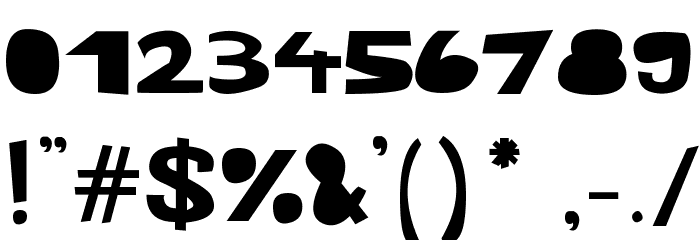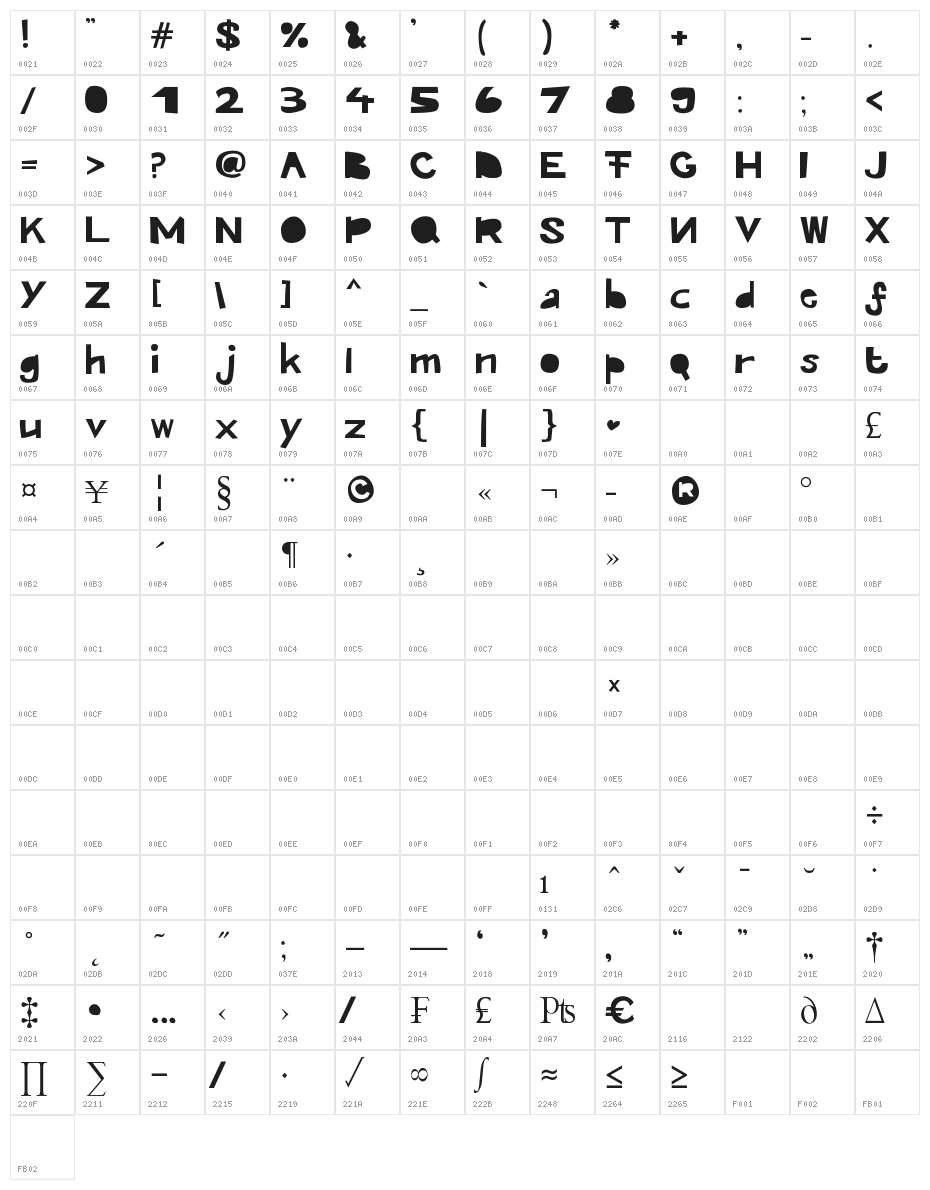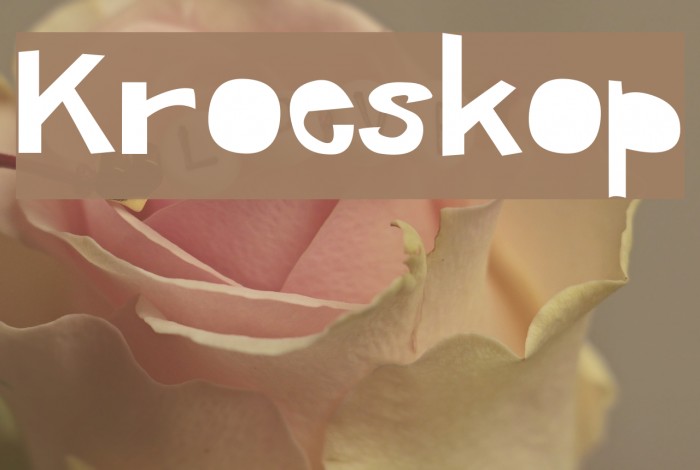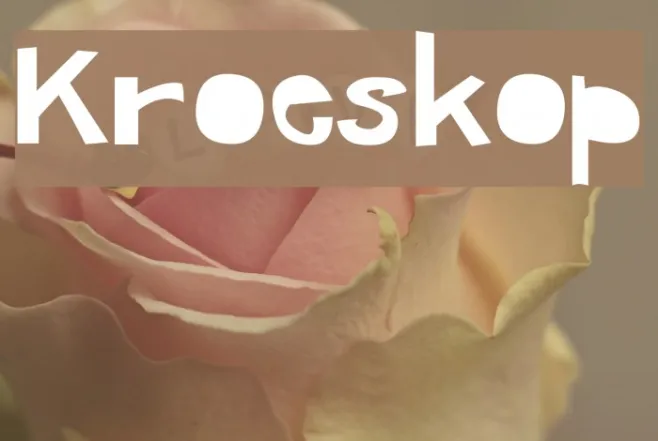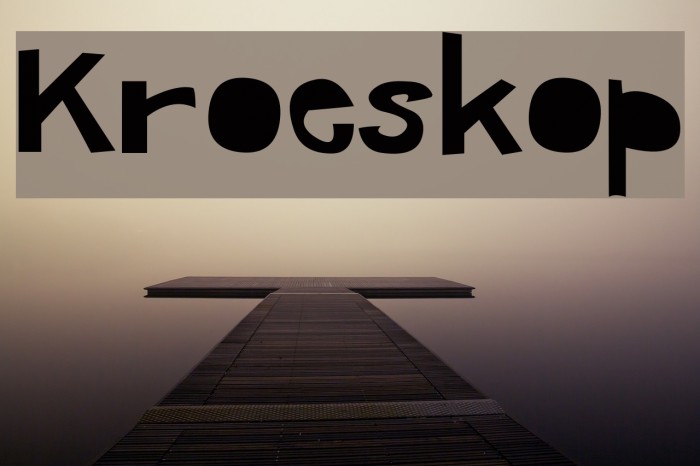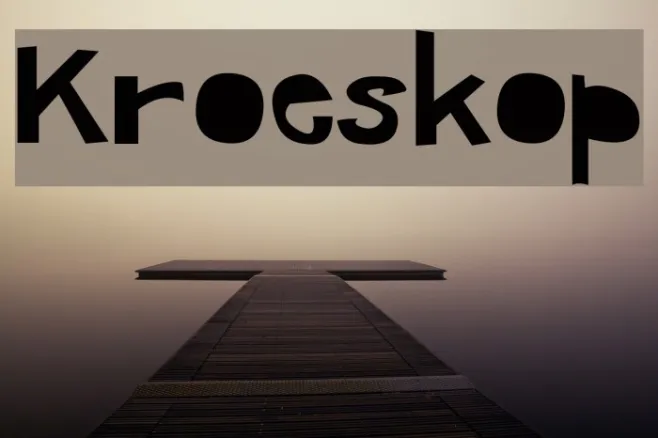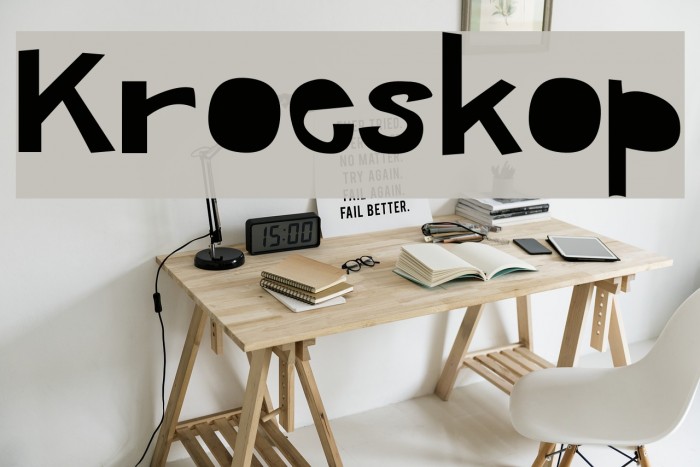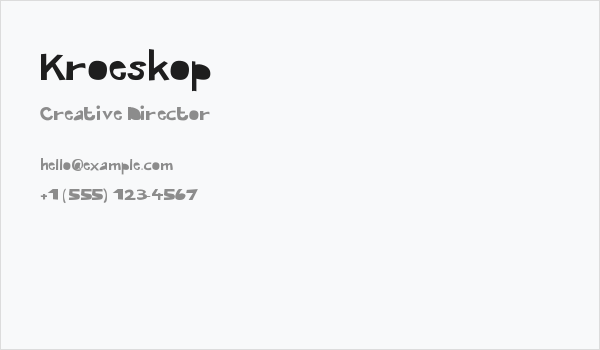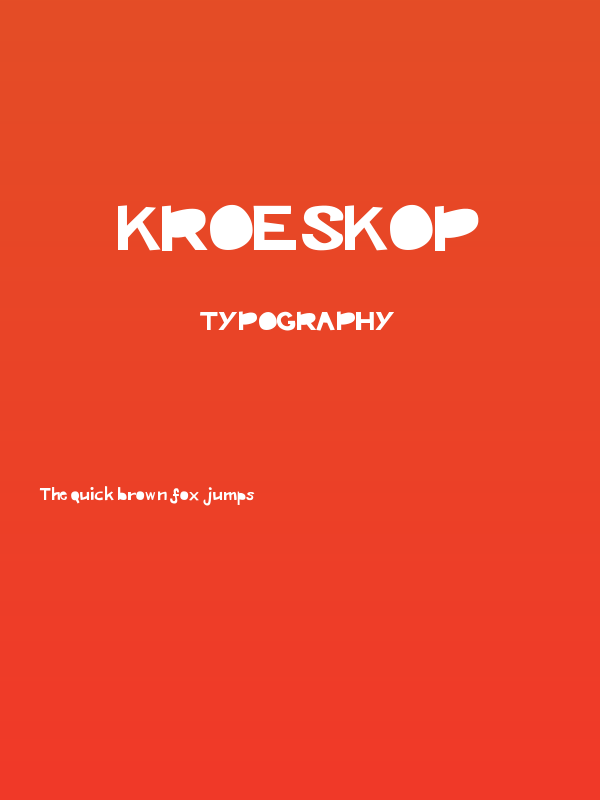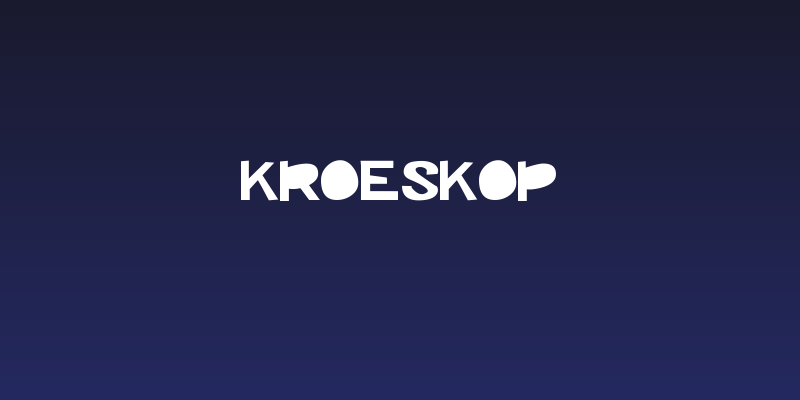
Kroeskop Font
Kroeskop Description
This font features a playful and bold design, characterized by its exaggerated curves and unique shapes. The letters have a whimsical, almost cartoon-like appearance, with varying stroke widths that add a dynamic feel. The uppercase letters are particularly bold, with some characters having distinctive, quirky forms that stand out. The lowercase letters maintain the playful theme, with rounded edges and a slightly irregular baseline that enhances the font's casual and fun style. Numbers and special characters follow the same design principles, ensuring consistency across all glyphs. This font is ideal for projects that require a touch of humor and creativity.
| Proposed Projects | Ideal for children's books, comic strips, playful branding, and creative posters. |